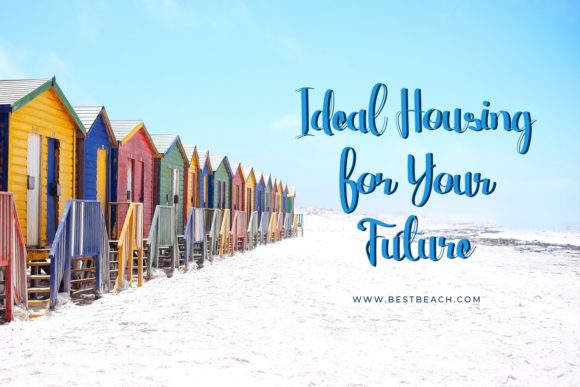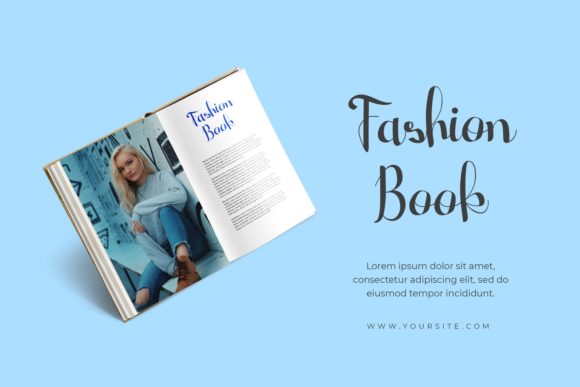
Introducing Beach Front Font: Elevate Your Designs with a Touch of Coastal Chic
Are you on the hunt for a font that captures the essence of the coast? Look no further than Beach Front Font, a modern and stylish handwritten font that’s perfect for creating eye-catching logos, branding, and quotes. With its unique and beautiful touch, this font is sure to make your design come alive!
The Perfect Blend of Modern and Handwritten
Beach Front Font strikes the perfect balance between modern style and handwritten charm. Its clean lines, flowing curves, and subtle imperfections evoke the feeling of a handwritten script, while its precision and consistency make it suitable for a wide range of design applications.
Why Choose Beach Front Font?
- Elegant and Sophisticated: Beach Front Font exudes a sense of elegance and sophistication, making it perfect for high-end branding, luxury goods, and upscale designs.
- Versatile: Whether you’re designing a logo, creating a social media graphic, or crafting a quote, Beach Front Font adapts seamlessly to any design style or format.
- Unique and Memorable: With its distinctive touch, Beach Front Font helps your design stand out from the crowd and leaves a lasting impression on your audience.
- Easy to Read: Despite its stylish and artistic flair, Beach Front Font remains highly legible, ensuring that your message is conveyed clearly and effectively.
Beach Front Font is an incredibly versatile design tool, suitable for a wide range of applications, including:
- Logo Design: Create a stunning logo that reflects your brand’s personality and values.
- Branding: Develop a cohesive brand identity that showcases your unique style and aesthetic.
- Quotes and Typography: Add a touch of elegance and sophistication to your quotes, posters, and typographic designs.
- Social Media Graphics: Elevate your social media presence with eye-catching graphics that showcase your brand’s personality.
- Packaging and Label Design: Add a touch of coastal chic to your product packaging and labels.
Tips and Tricks for Getting the Most Out of Beach Front Font
To maximize the impact of Beach Front Font, consider the following design tips:
- Experiment with Colors: Pair Beach Front Font with a range of colors that evoke the feeling of the coast, such as blues, greens, and sandy neutrals.
- Play with Texture: Add texture and depth to your design by combining Beach Front Font with natural textures, such as wood, stone, or linen.
- Mix and Match: Combine Beach Front Font with other fonts to create a unique and visually appealing typographic hierarchy.
Beach Front Font is a modern and stylish handwritten font that’s perfect for designers and crafters looking to add a touch of coastal chic to their designs. With its unique and beautiful touch, versatility, and endless design possibilities, this font is sure to become a staple in your design toolkit. So why wait? Download Beach Front Font today and start creating stunning designs that capture the essence of the coast!